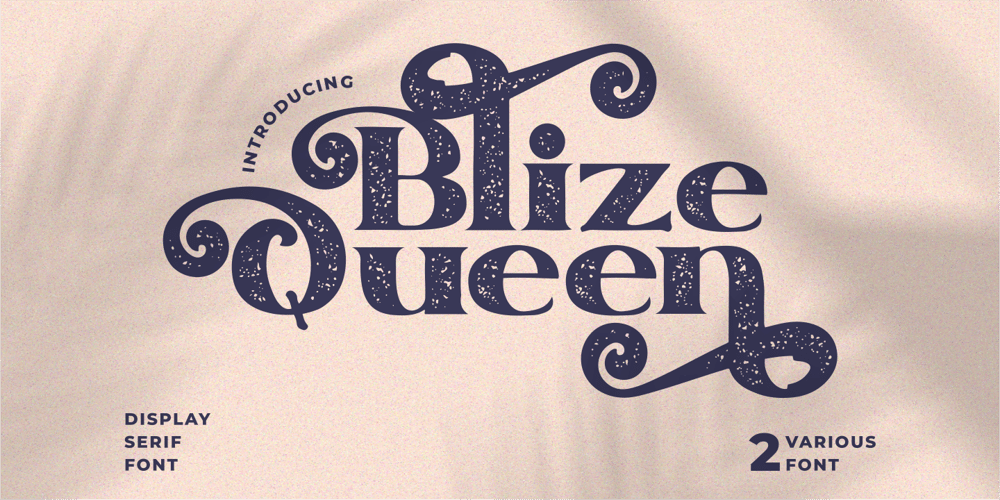
Blize Queen
Blize Queen font
Blize Queen Font Family was designed by Putra Novembria Candra Kusuma and published by Putracetol. Blize Queen contains 2 styles and family package options. Blize Queen – Display Serif Font. Blize Queen is bold, groovy, clean and unique with display fell. Blize Queen is very versatile serif font that works great in large and small sizes. Helps to create layout display design in 60s or 70s design projects. Blize Queen is a display serif font with beautiful ligatures, tons of alternative glyphs and multilingual support.Come with open type feature with a lot of alternates, its help you to make great lettering.Blize Queen best uses for heading headlines, cover, poster, logos, quotes, product packaging, merchandise, social media & greeting cards and many more.